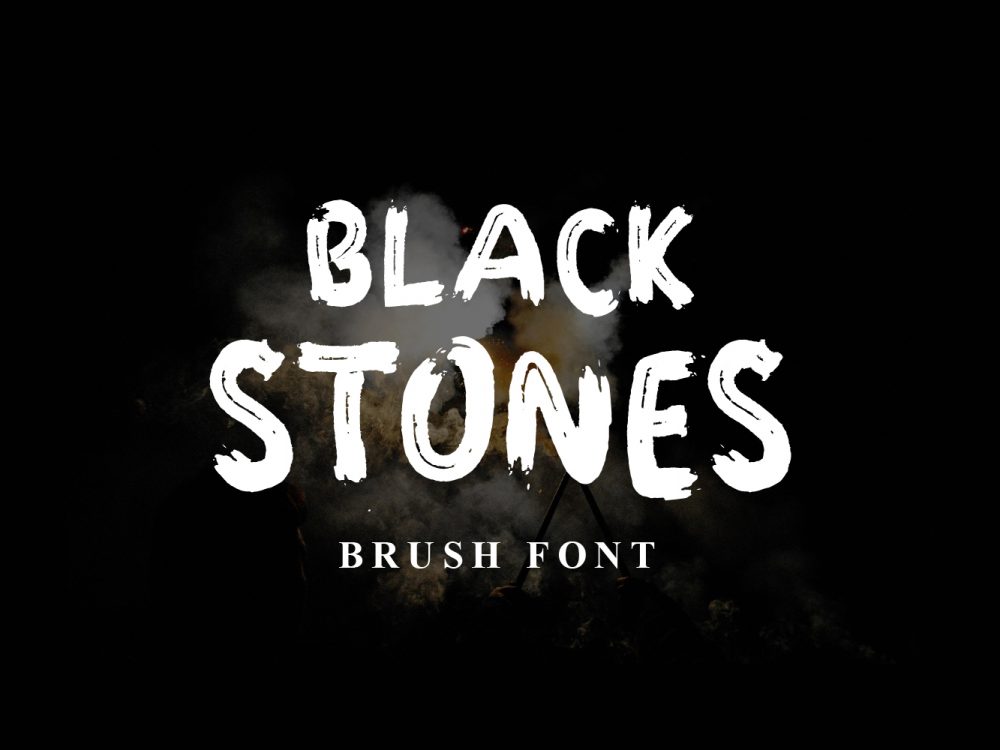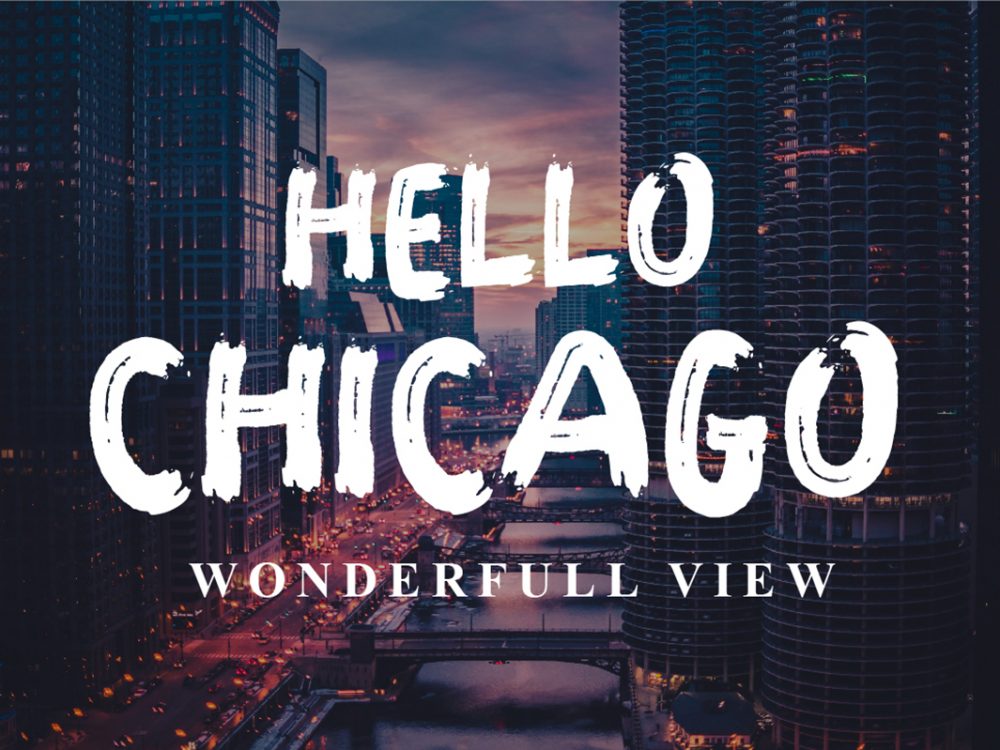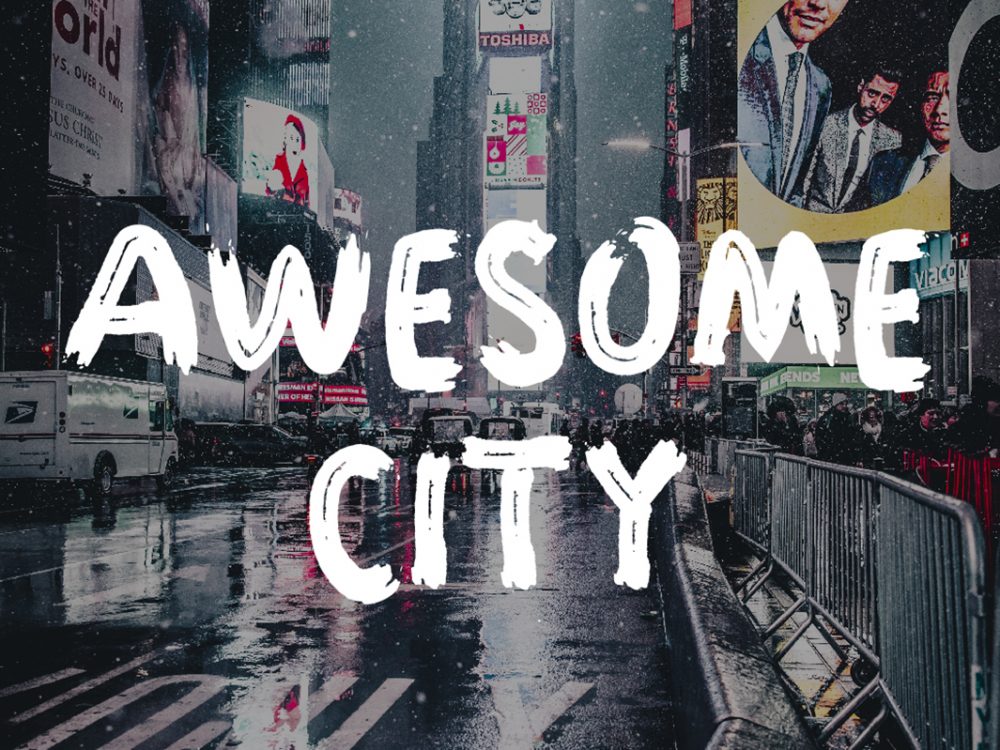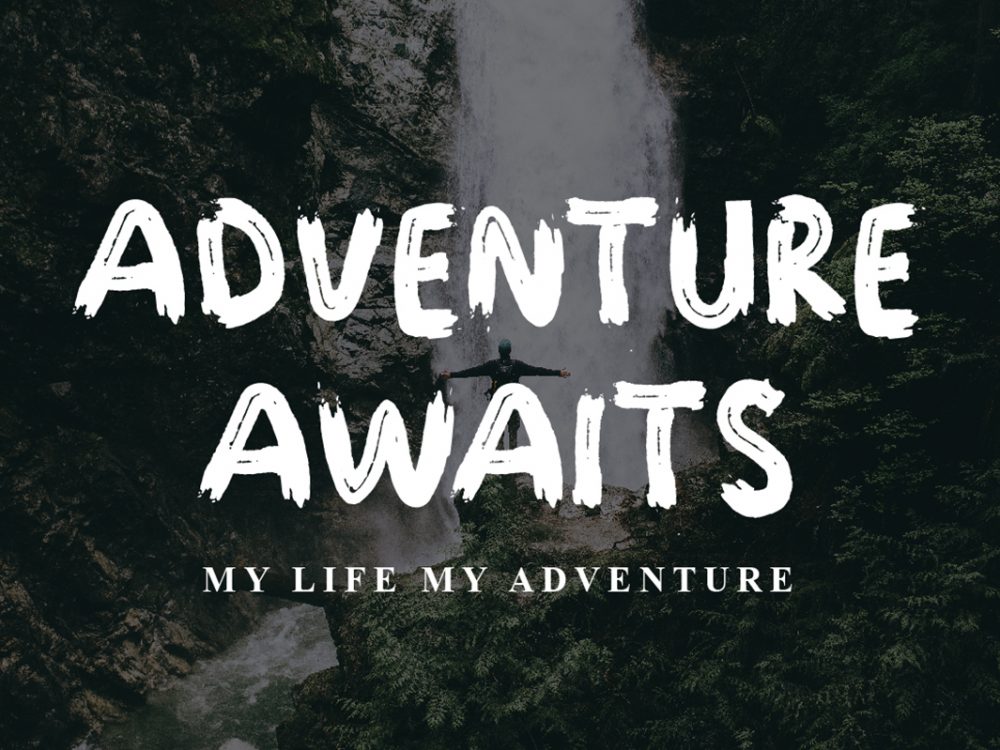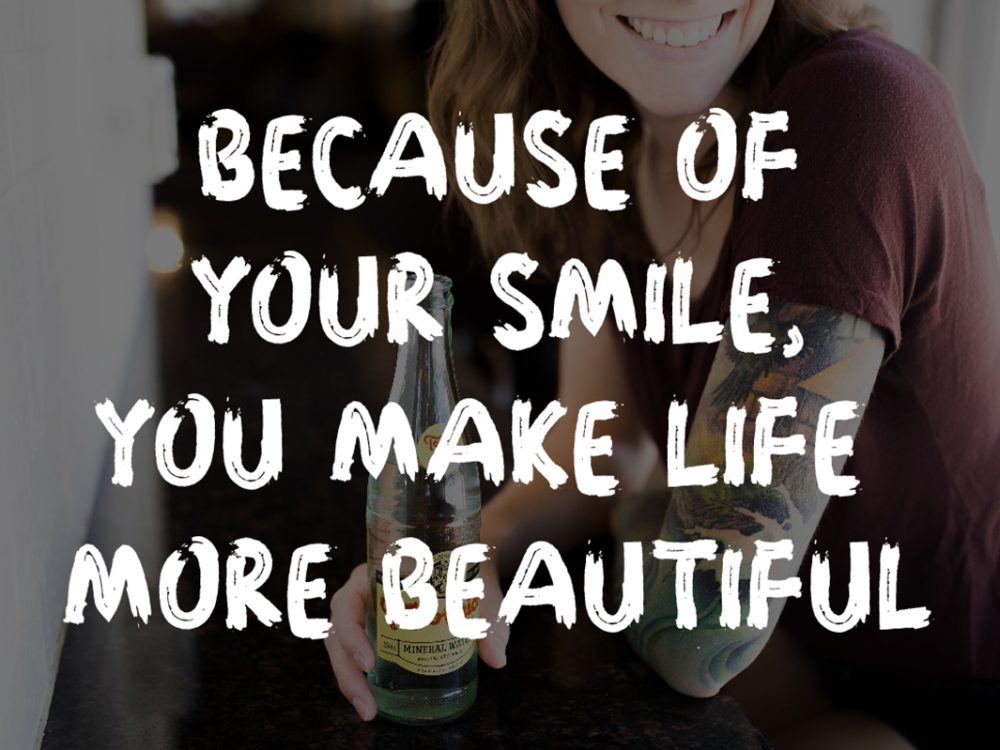
Black Stones Free Font
Black Stones Free Font is an interesting typeface inspired by a street style that sets itself apart from others in high detail. This font simulates writing with a brush and will help you create unique design projects in a modern style. You can use this font to create memorable posters, wedding invitations, cards, branding, flyers, and more. If you like it don’t forget to check out the full version.